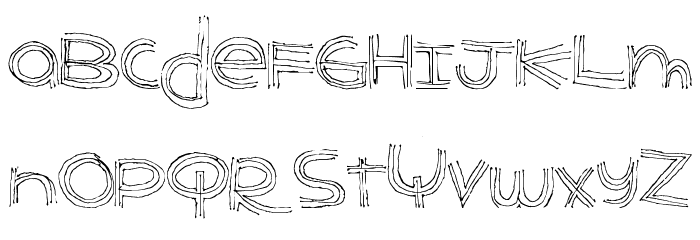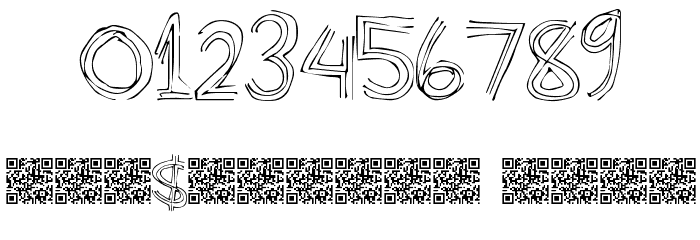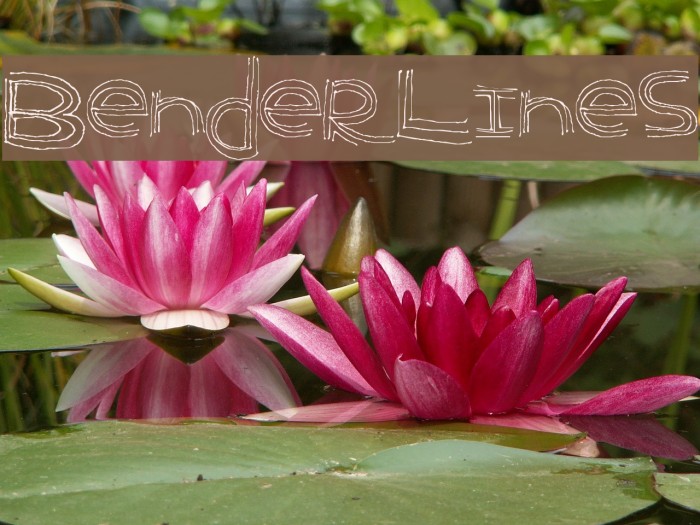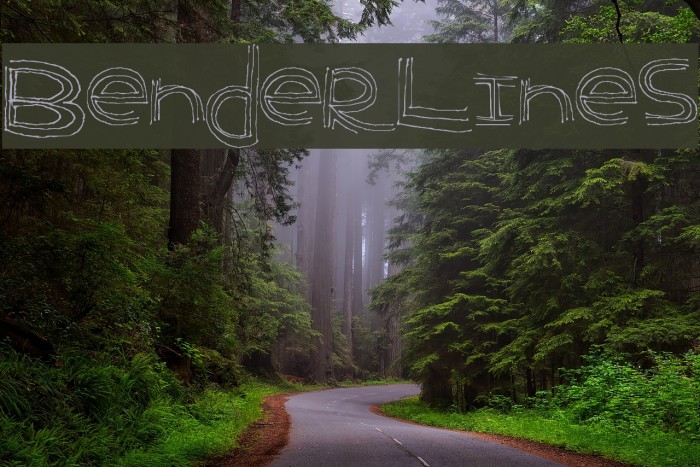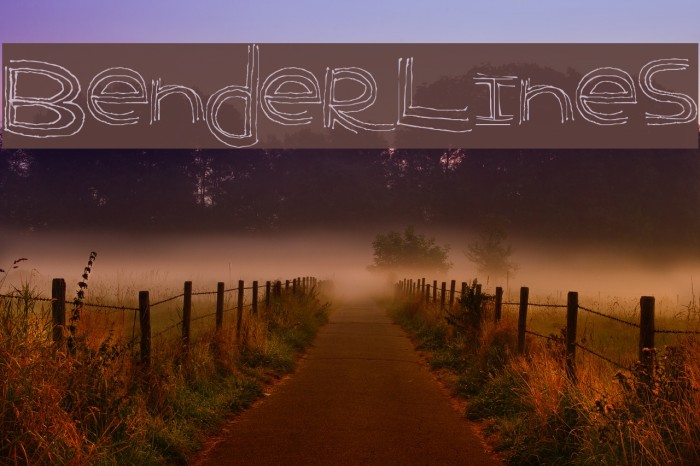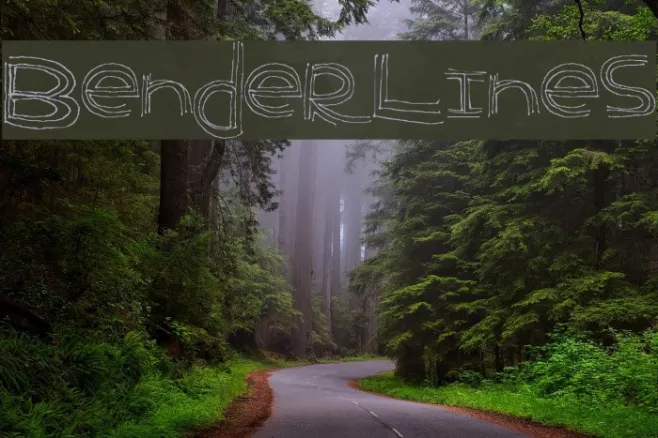
BenderLines Font
This font features a unique, hand-drawn style with a playful and artistic flair. Each character is composed of multiple overlapping lines, giving it a sketch-like appearance. The letters are slightly irregular, adding to the casual and creative vibe. The uppercase and lowercase letters maintain a consistent style, with rounded edges and a slightly whimsical touch. Numbers and special characters follow the same design, ensuring a cohesive look across all elements. This font is ideal for projects that require a personal, artistic touch, such as invitations, posters, or creative branding.
A playful, hand-drawn font with a sketch-like, artistic style.
- Proposed Projects: Ideal for creative projects like invitations, posters, and artistic branding.
- Use Case: Logos, Headlines, Creative projects